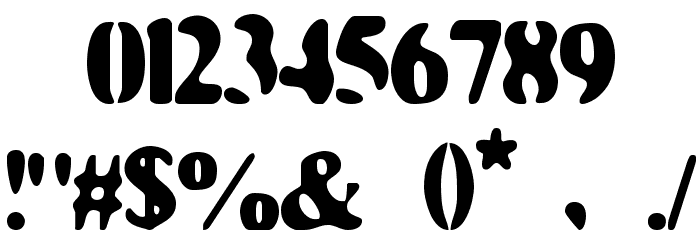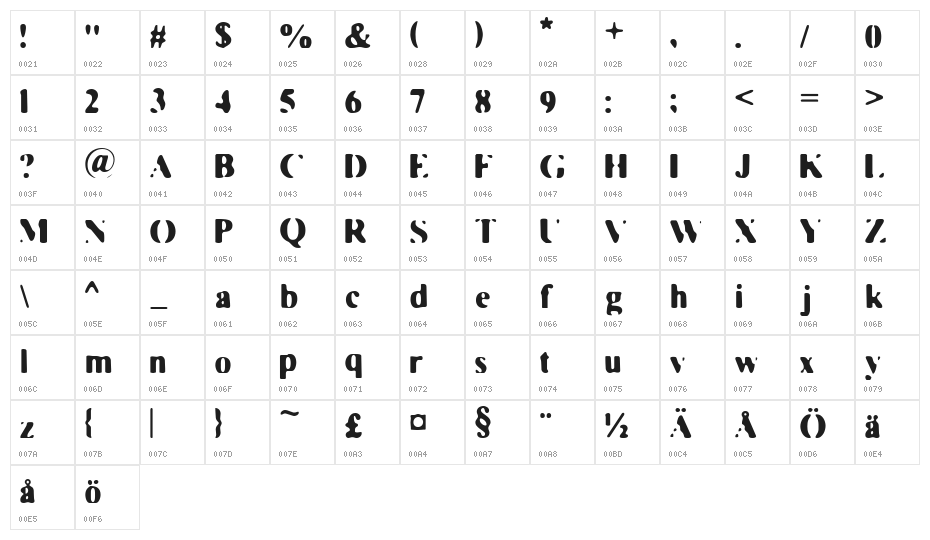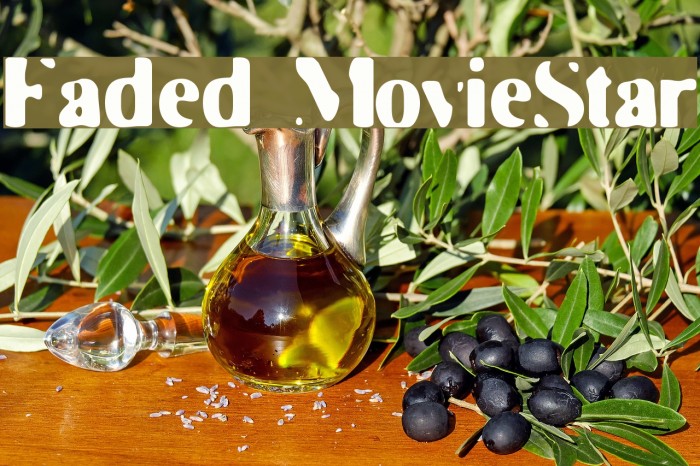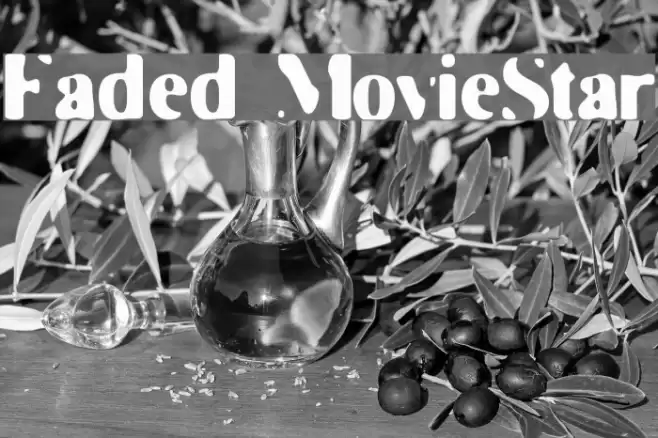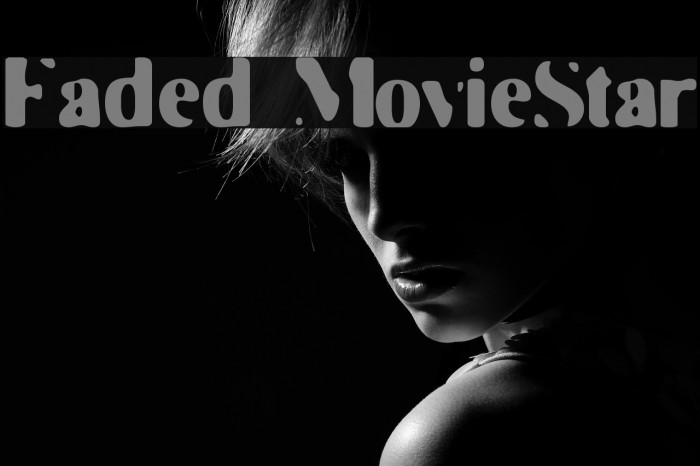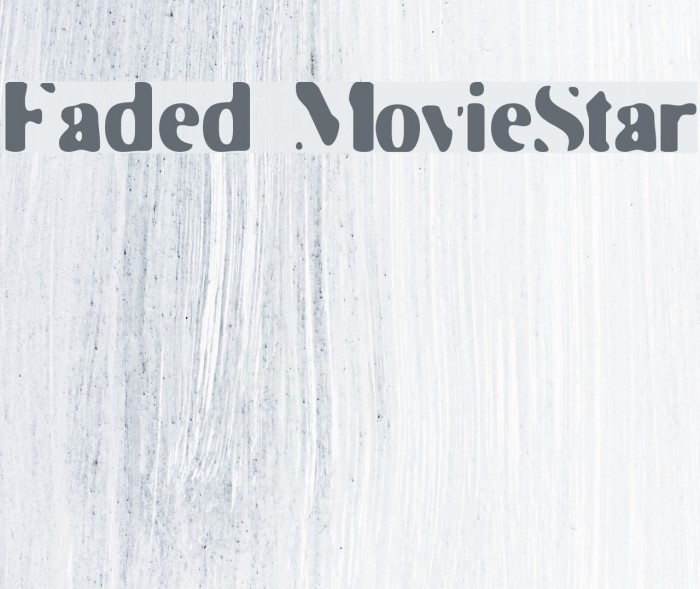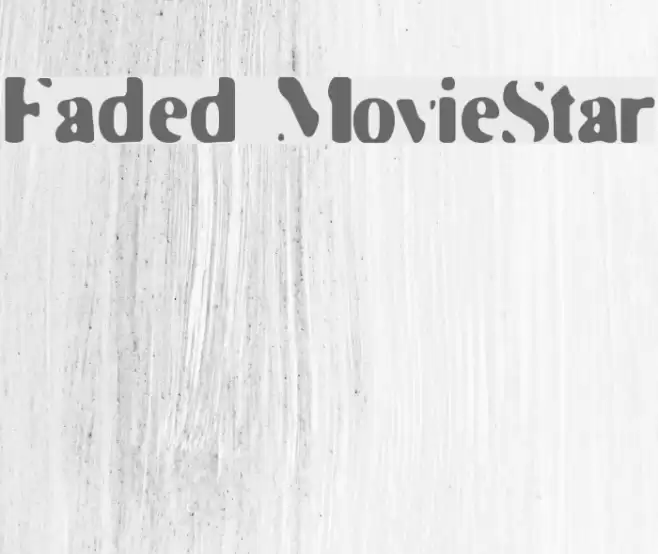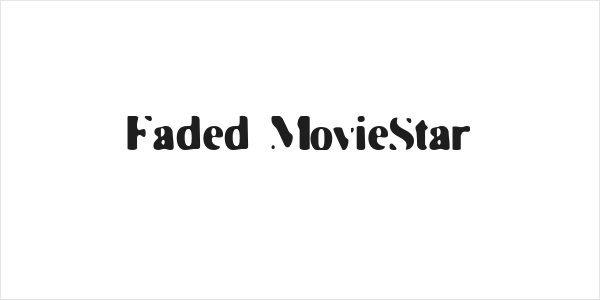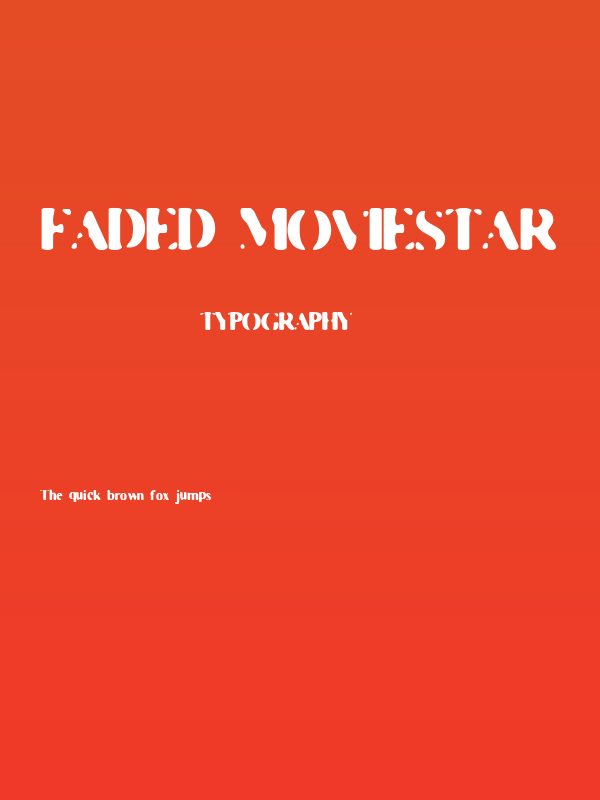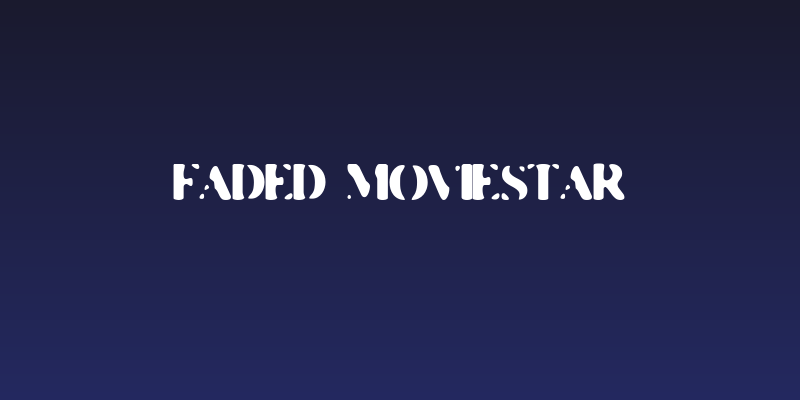
Faded MovieStar Font
Faded MovieStar Description
This font features a bold and playful design with a distinctive stencil-like appearance. The characters are robust and chunky, with rounded edges and unique cut-out sections that give it a dynamic and eye-catching look. The uppercase and lowercase letters maintain a consistent style, while the numerals and special characters complement the overall aesthetic. This font's boldness and decorative nature make it suitable for projects that require a strong visual impact.
| Proposed Projects | Ideal for posters, branding, headlines, and any design project that aims to capture attention with a bold statement. |